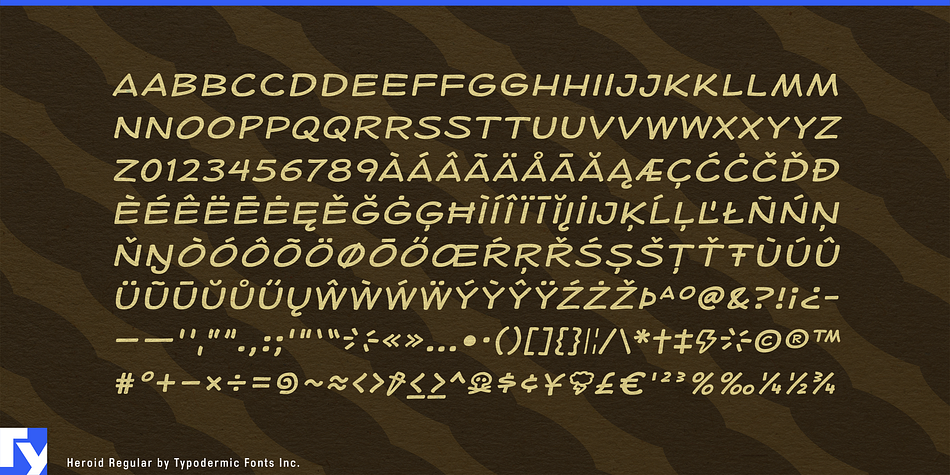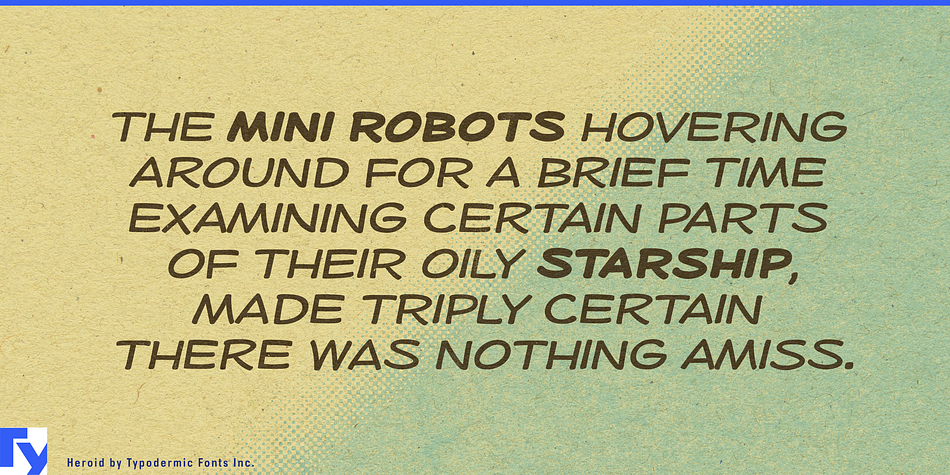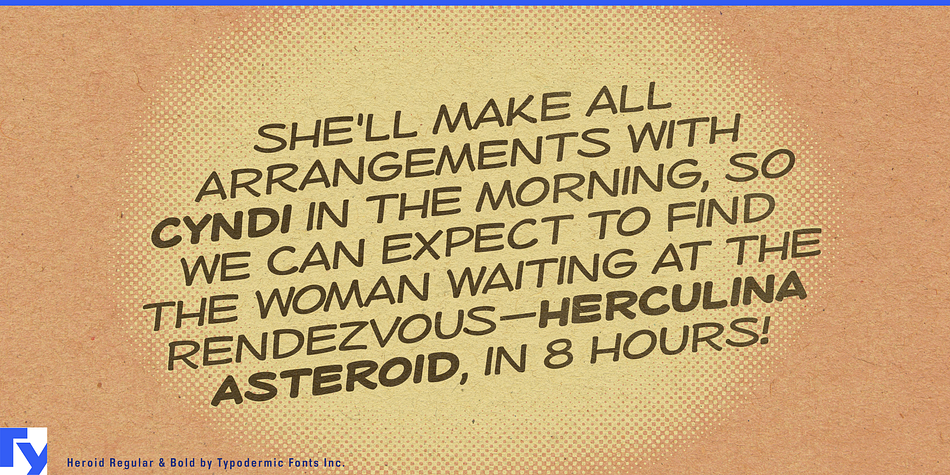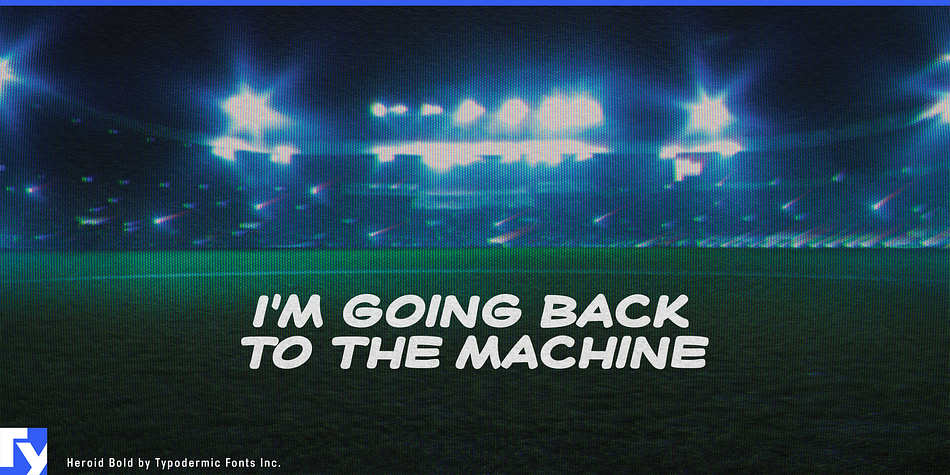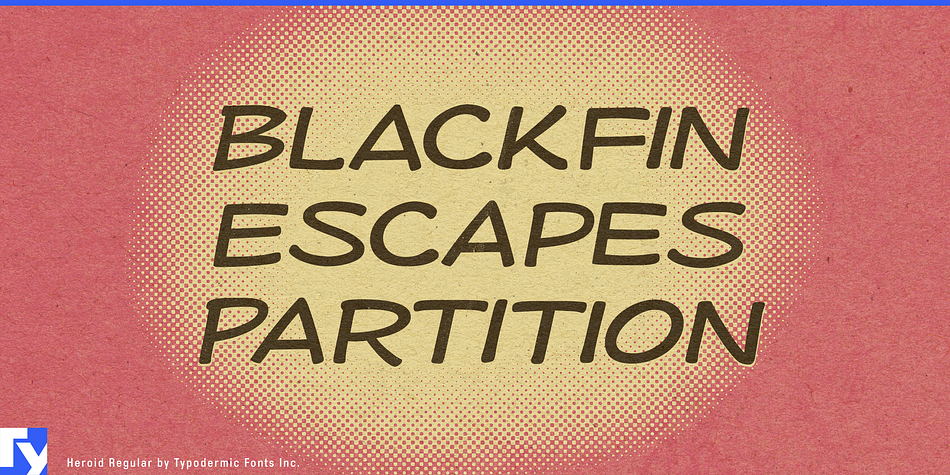
Heroid is a comic and hand display font family. This typeface has two styles and was published by Typodermic Fonts Inc.
Heroid proudly flexes its letterforms in regular and bold. Endowed with a selection of alternate caps, this is one super typeface strong enough to punch its way through a steel door. Most Latin-based European writing systems are supported, including the following languages. Afaan Oromo, Afar, Afrikaans, Albanian, Alsatian, Aromanian, Aymara, Bashkir (Latin), Basque, Belarusian (Latin), Bemba, Bikol, Bosnian, Breton, Cape Verdean, Creole, Catalan, Cebuano, Chamorro, Chavacano, Chichewa, Crimean Tatar (Latin), Croatian, Czech, Danish, Dawan, Dholuo, Dutch, English, Estonian, Faroese, Fijian, Filipino, Finnish, French, Frisian, Friulian, Gagauz (Latin), Galician, Ganda, Genoese, German, Greenlandic, Guadeloupean Creole, Haitian Creole, Hawaiian, Hiligaynon, Hungarian, Icelandic, Ilocano, Indonesian, Irish, Italian, Jamaican, Kaqchikel, Karakalpak (Latin), Kashubian, Kikongo, Kinyarwanda, Kirundi, Kurdish (Latin), Latvian, Lithuanian, Lombard, Low Saxon, Luxembourgish, Maasai, Makhuwa, Malay, Maltese, Māori, Moldovan, Montenegrin, Ndebele, Neapolitan, Norwegian, Novial, Occitan, Ossetian (Latin), Papiamento, Piedmontese, Polish, Portuguese, Quechua, Rarotongan, Romanian, Romansh, Sami, Sango, Saramaccan, Sardinian, Scottish Gaelic, Serbian (Latin), Shona, Sicilian, Silesian, Slovak, Slovenian, Somali, Sorbian, Sotho, Spanish, Swahili, Swazi, Swedish, Tagalog, Tahitian, Tetum, Tongan, Tshiluba, Tsonga, Tswana, Tumbuka, Turkish, Turkmen (Latin), Tuvaluan, Uzbek (Latin), Venetian, Vepsian, Võro, Walloon, Waray-Waray, Wayuu, Welsh, Wolof, Xhosa, Yapese, Zapotec Zulu and Zuni.